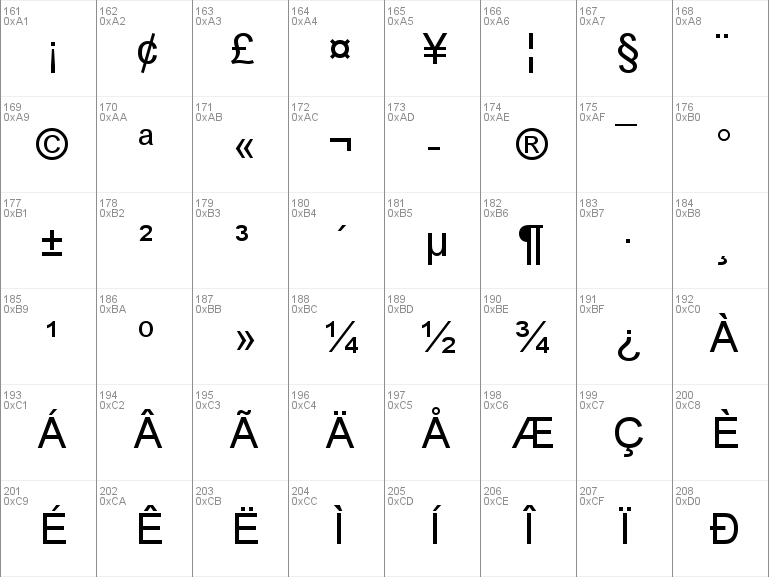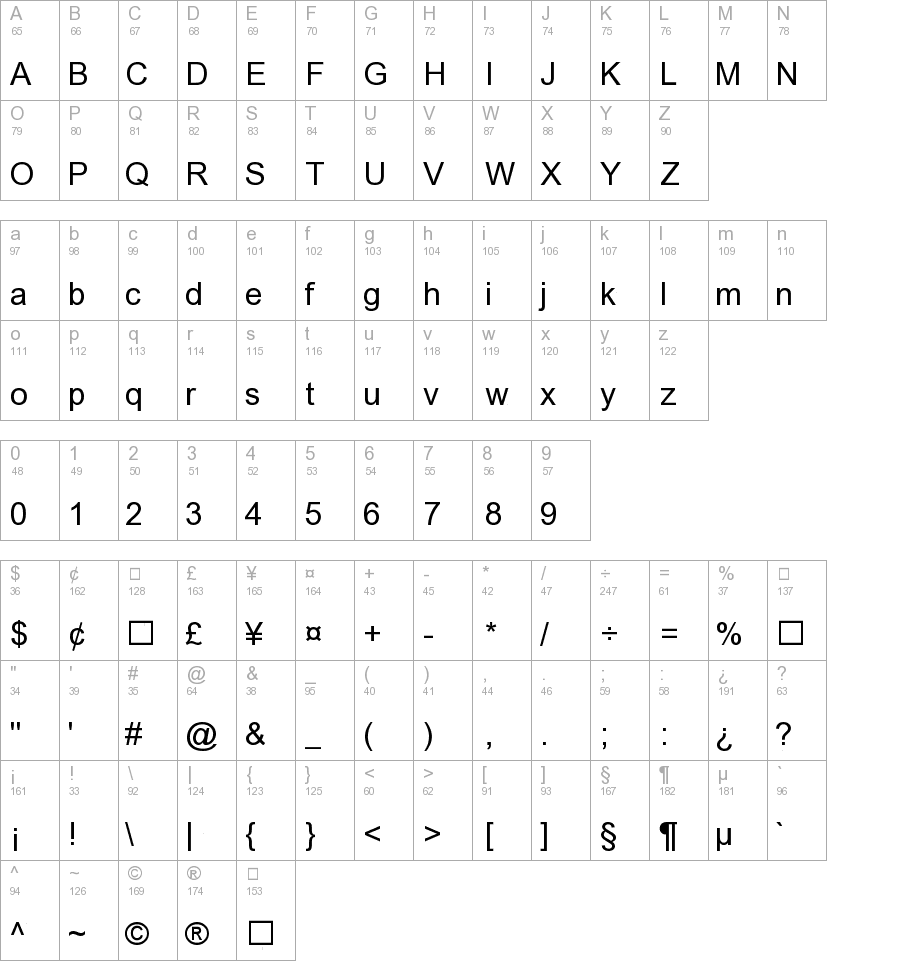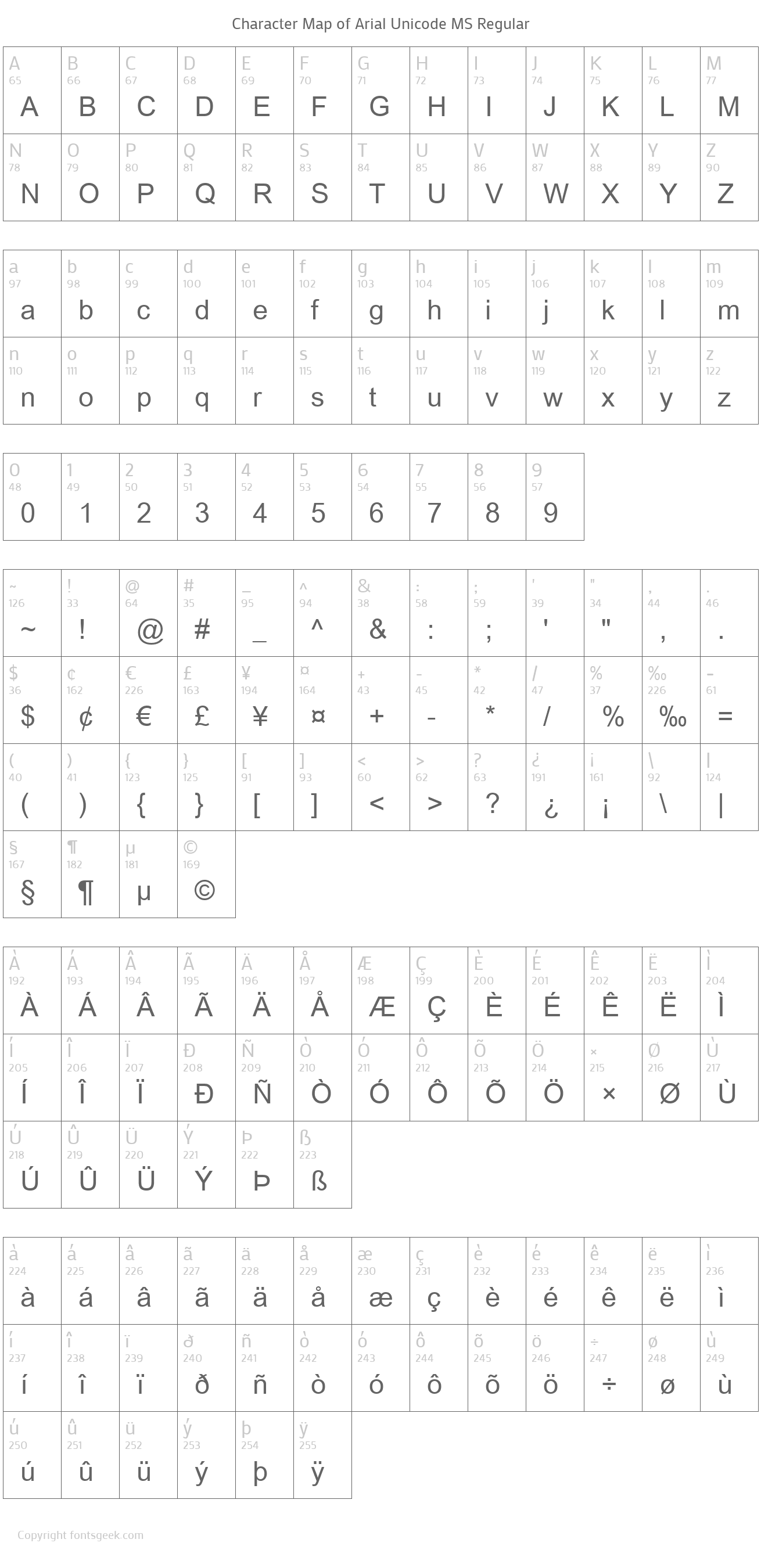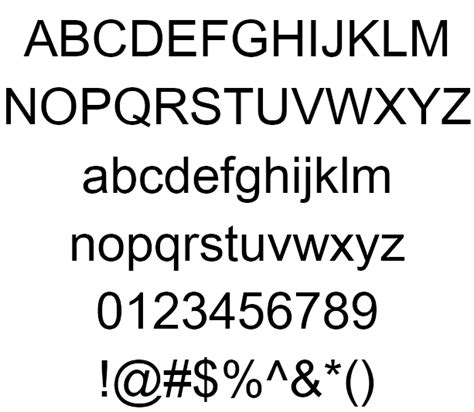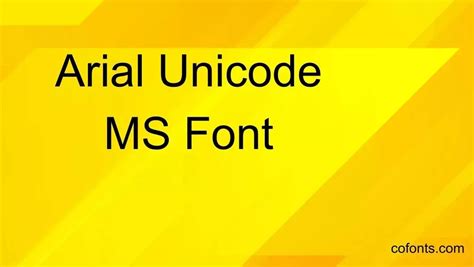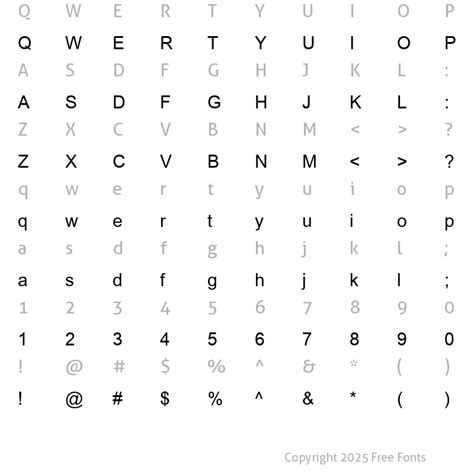
Arial Unicode Ms Font
Arial Unicode Ms Font - Web in this article we'll talk about how to install those fonts so you can use them in microsoft office. Arial unicode ms font is so popular over the world today! Compared to arial, it includes higher line height, omits kerning pairs and adds enough glyphs to. Web arial unicode ms is a truetype font and the extended version of the font arial. To embed fonts in a microsoft office word document or powerpoint. Web arial unicode ms font download. This sans serif font is so much useful for satisfying the. Arial unicode ms regular is a regular truetype font. Arial unicode ms was originally commissioned by microsoft office as an extended. Web arial unicode ms regular.
To embed fonts in a microsoft office word document or powerpoint. Arial unicode ms regular is a regular truetype font. Web arial unicode ms is a truetype font and the extended version of the font arial. Web in this article we'll talk about how to install those fonts so you can use them in microsoft office. Arial unicode ms font is so popular over the world today! Arial unicode ms was originally commissioned by microsoft office as an extended. This sans serif font is so much useful for satisfying the. Compared to arial, it includes higher line height, omits kerning pairs and adds enough glyphs to. Web arial unicode ms regular. Web arial unicode ms font download.
Arial unicode ms was originally commissioned by microsoft office as an extended. Web in this article we'll talk about how to install those fonts so you can use them in microsoft office. Arial unicode ms font is so popular over the world today! Web arial unicode ms regular. Web arial unicode ms is a truetype font and the extended version of the font arial. To embed fonts in a microsoft office word document or powerpoint. This sans serif font is so much useful for satisfying the. Arial unicode ms regular is a regular truetype font. Web arial unicode ms font download. Compared to arial, it includes higher line height, omits kerning pairs and adds enough glyphs to.
To embed fonts in a microsoft office word document or powerpoint. Arial unicode ms was originally commissioned by microsoft office as an extended. Compared to arial, it includes higher line height, omits kerning pairs and adds enough glyphs to. Web in this article we'll talk about how to install those fonts so you can use them in microsoft office. Web.
Arial unicode ms font is so popular over the world today! Web arial unicode ms is a truetype font and the extended version of the font arial. This sans serif font is so much useful for satisfying the. Web arial unicode ms regular. Arial unicode ms was originally commissioned by microsoft office as an extended.
Compared to arial, it includes higher line height, omits kerning pairs and adds enough glyphs to. Arial unicode ms regular is a regular truetype font. Arial unicode ms was originally commissioned by microsoft office as an extended. Arial unicode ms font is so popular over the world today! This sans serif font is so much useful for satisfying the.
Arial unicode ms font is so popular over the world today! Web in this article we'll talk about how to install those fonts so you can use them in microsoft office. This sans serif font is so much useful for satisfying the. Web arial unicode ms font download. To embed fonts in a microsoft office word document or powerpoint.
Arial unicode ms regular is a regular truetype font. Arial unicode ms font is so popular over the world today! Compared to arial, it includes higher line height, omits kerning pairs and adds enough glyphs to. To embed fonts in a microsoft office word document or powerpoint. This sans serif font is so much useful for satisfying the.
Web arial unicode ms is a truetype font and the extended version of the font arial. Arial unicode ms font is so popular over the world today! Compared to arial, it includes higher line height, omits kerning pairs and adds enough glyphs to. Arial unicode ms regular is a regular truetype font. Web arial unicode ms font download.
Compared to arial, it includes higher line height, omits kerning pairs and adds enough glyphs to. Arial unicode ms font is so popular over the world today! This sans serif font is so much useful for satisfying the. To embed fonts in a microsoft office word document or powerpoint. Arial unicode ms was originally commissioned by microsoft office as an.
To embed fonts in a microsoft office word document or powerpoint. Arial unicode ms was originally commissioned by microsoft office as an extended. Web in this article we'll talk about how to install those fonts so you can use them in microsoft office. Web arial unicode ms is a truetype font and the extended version of the font arial. Web.
Compared to arial, it includes higher line height, omits kerning pairs and adds enough glyphs to. Arial unicode ms font is so popular over the world today! Web arial unicode ms font download. Web arial unicode ms regular. Web arial unicode ms is a truetype font and the extended version of the font arial.
Web Arial Unicode Ms Is A Truetype Font And The Extended Version Of The Font Arial.
Web in this article we'll talk about how to install those fonts so you can use them in microsoft office. To embed fonts in a microsoft office word document or powerpoint. This sans serif font is so much useful for satisfying the. Arial unicode ms regular is a regular truetype font.